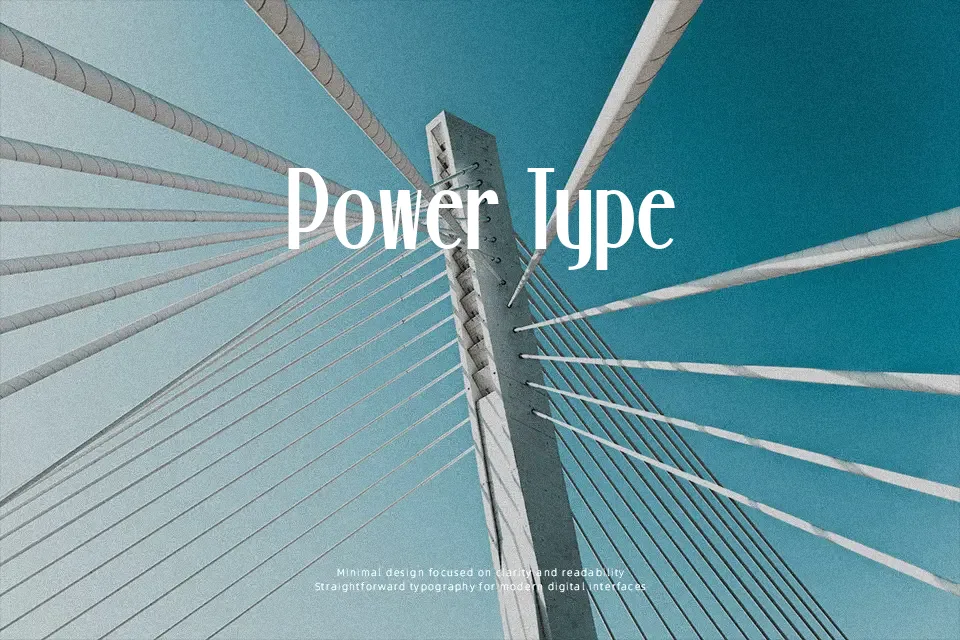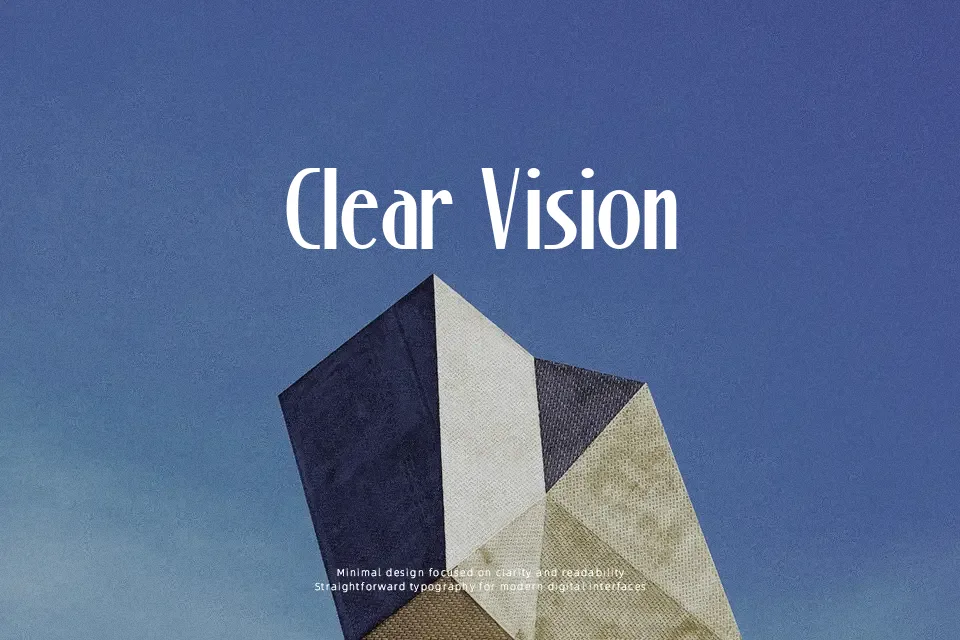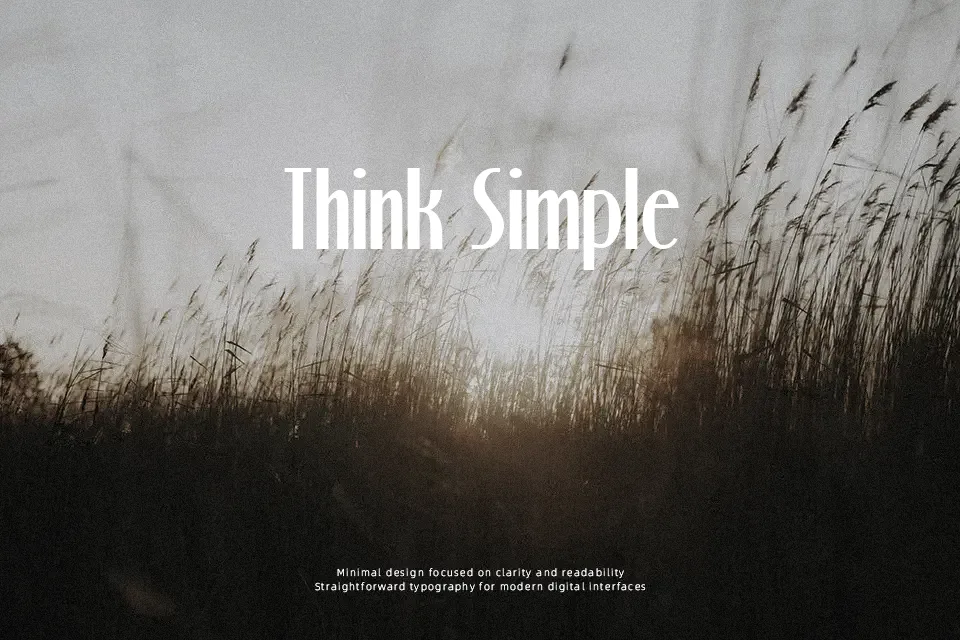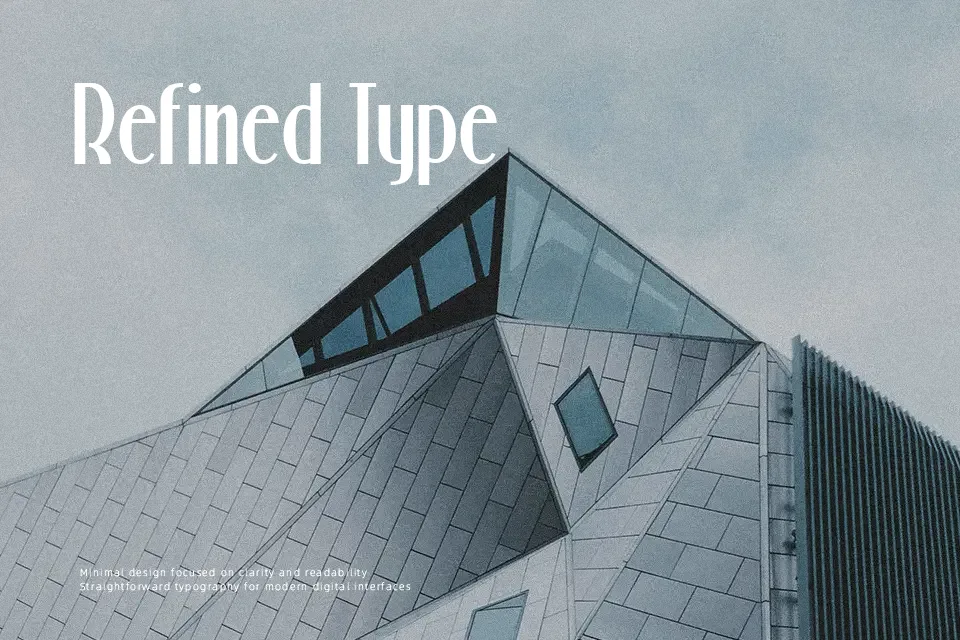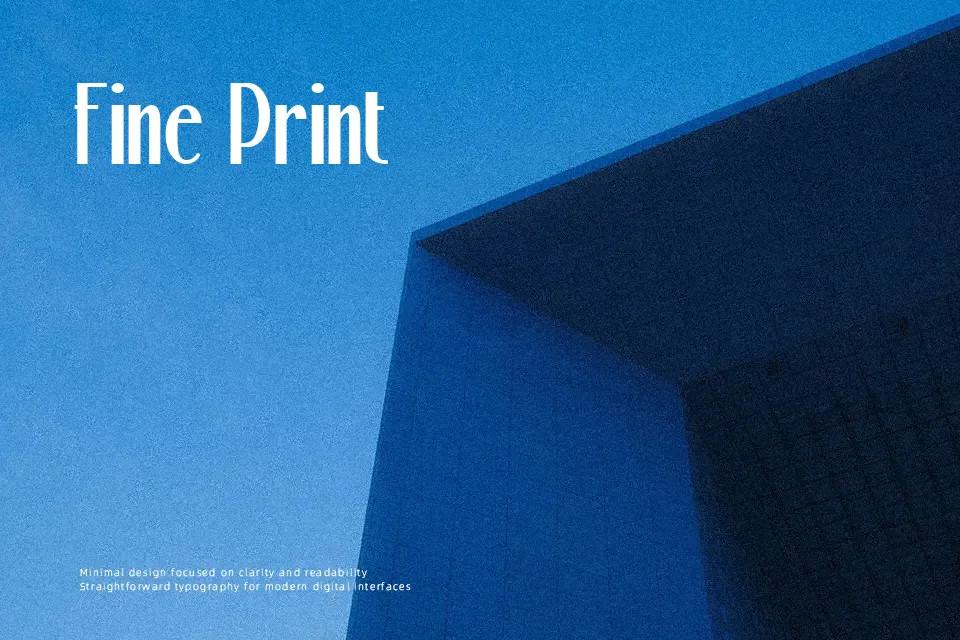
Stony Island NF Font
Designed by Nick's Fonts
Stony Island NF Font showcases pronounced stroke contrast paired with unconventional geometric waistlines and sweeping curves. Heavy vertical stems juxtaposed against delicate crossbars give the letterforms a distinct Art Deco presence. The character spacing is relatively compact, maintaining visual cohesion across all-caps headline settings and title treatments. The typeface excels in large display contexts such as historic exhibition posters, boutique signage, and thematic book covers. However, the extreme contrast and exaggerated proportions significantly reduce legibility at smaller point sizes. Fine hairline strokes tend to break down in dense editorial copy, making the design unsuitable for extended reading.
Best For: vintage event posters, boutique storefront signage, thematic book titles, retro packaging labels
Not Ideal For: continuous paragraph text, mobile user interface labels, dense financial reports, small caption copy
Perfect for advertising, headline, and logo, with a creative and decorative style.